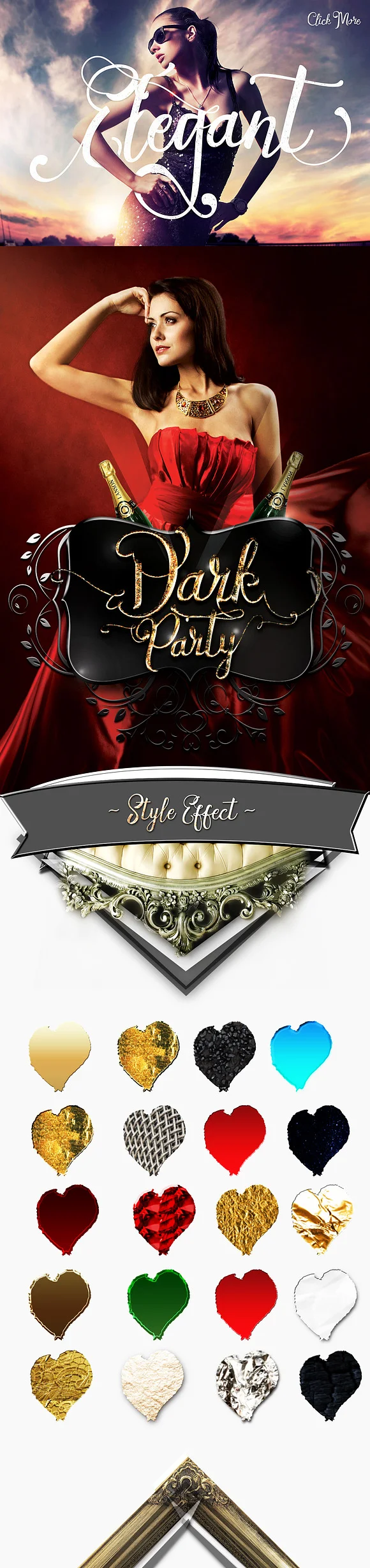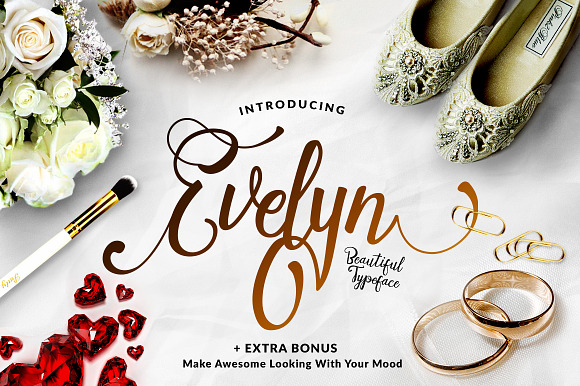
Evelyn + Extra Font
A good typeface communicates tone before a single word is read. Evelyn + Extra achieves this through strong typographic hierarchy support. The typeface brings an elegant, calligraphic sensibility to a broad range of creative disciplines, with a confident voice that adapts to diverse briefs that holds up whether the work is print-first or screen-first.
In practice, Evelyn + Extra proves particularly effective for feminine branding, greeting cards, editorial layouts, wedding invitations, perfume labels. Designers reaching for it find that the type decisions feel resolved rather than laboured — a useful quality when client timelines are tight.
The range of applications extends to fashion editorials, luxury stationery, product labels, web design. That breadth is deliberate: the proportions and spacing were stress-tested across a wide range of mock briefs before the typeface was finalised.
Freelance designers across print and digital disciplines find Evelyn + Extra a reliable choice for projects that demand both personality and restraint. The design avoids the self-conscious quirkiness that dates quickly, settling instead for considered distinctiveness that holds up over time.